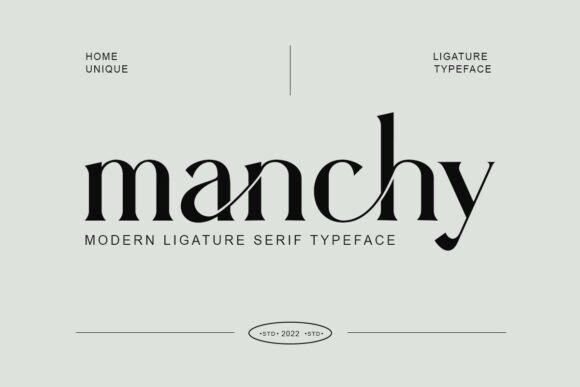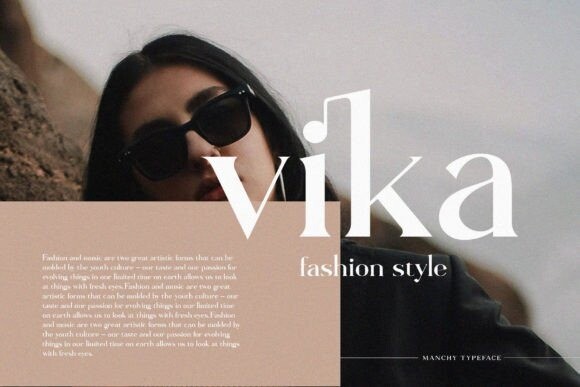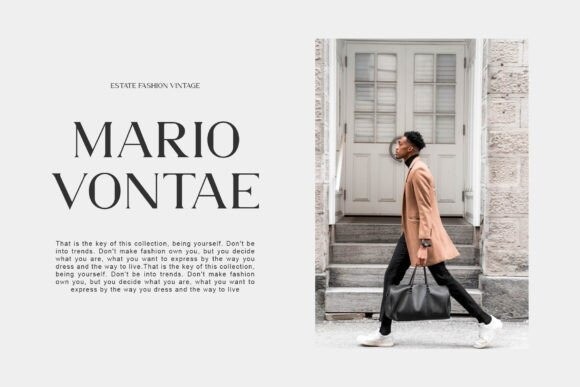
Manchy Font
Manchy is an elegant, luxurious serif font. Fall in love with its incredibly versatile style and use it to create gorgeous wedding invitations, beautiful stationary art, eye-catching social media posts, and much more!